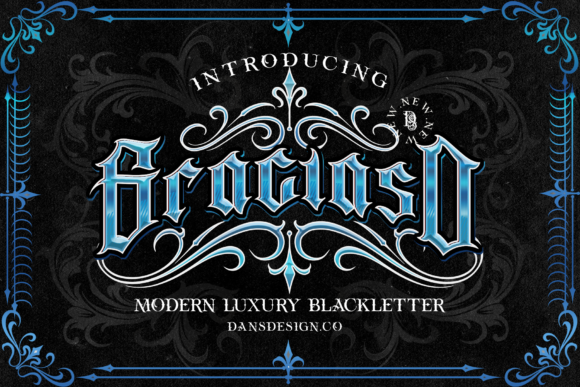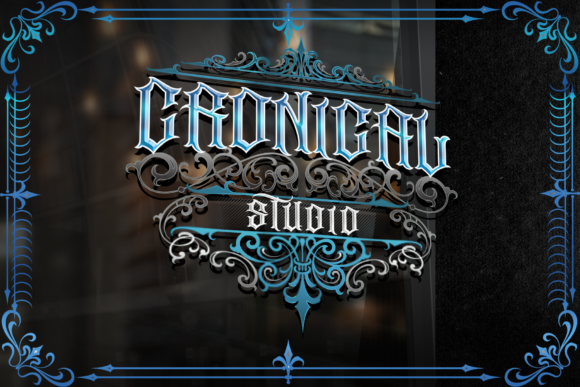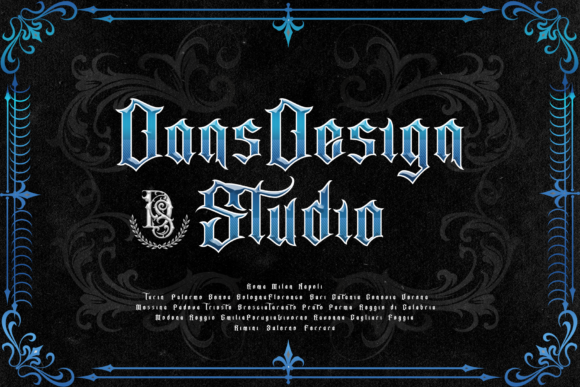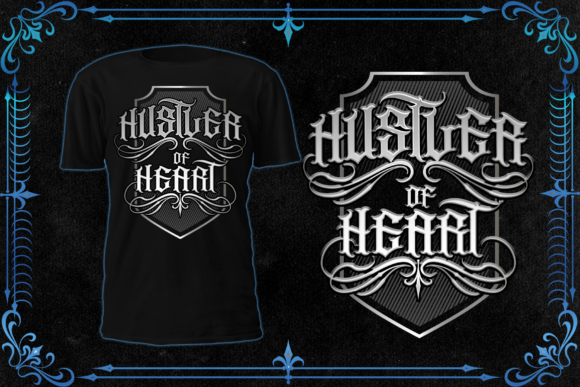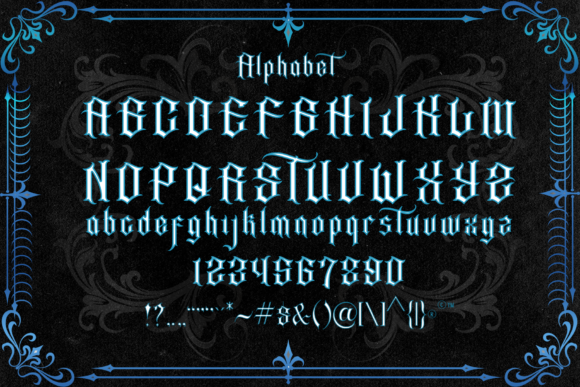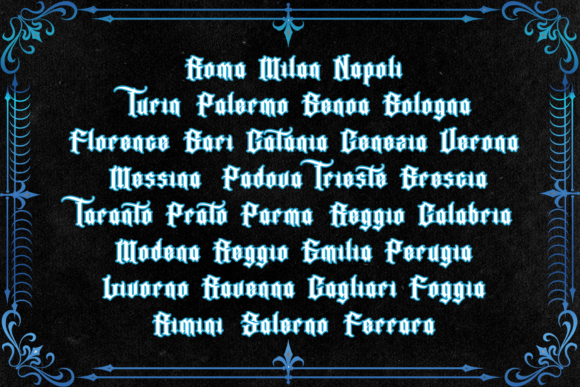
The Power of Graciaso Font: Unlocking Bold Blackletter Style
I’ll never forget the design project that led me to discover Graciaso Font. I was working on a branding campaign for a Gothic-inspired fashion label, and I was struggling to find the perfect font to capture the essence of their dark, edgy aesthetic. That’s when I stumbled upon Graciaso – a highly detailed and bold blackletter font that instantly caught my attention. Its uniquely shaped letters and imposing presence made it the perfect fit for the project, and I’ve been hooked ever since.
An Honest Review of Graciaso Font
- ✨ Highly detailed and intricate design: Graciaso’s bold blackletter style is perfect for making a statement in any design project.
- ✅ Unique letterforms: The font’s distinctive letter shapes set it apart from other blackletter fonts and add a touch of elegance to any design.
- ✅ Versatility: Graciaso can be used for a wide range of projects, from Gothic-inspired branding to medieval-themed designs.
While Graciaso is an amazing font, there are a few things to keep in mind:
- 🤔 Legibility at small sizes: Due to its intricate design, Graciaso may not be the best choice for body text or small font sizes.
- ⚠️ Limited use in digital media: While Graciaso looks stunning in print, it may not be the best choice for digital media, such as websites or social media graphics, due to its bold and intricate design.
- Experiment with Graciaso’s OpenType features, such as stylistic alternates and glyphs, to add more personality to your design.
The Backstory of Graciaso Font
Graciaso Font was designed by a team of typographers who wanted to create a bold, eye-catching font that would capture the essence of Gothic-inspired designs. The font’s unique letterforms and intricate design make it perfect for designs that require a touch of elegance and sophistication.
| Font Name | Graciaso Font |
| Author | Dansdesign |
Q: What is Graciaso Font?
A: Graciaso Font is a highly detailed and bold blackletter font designed for use in a wide range of creative projects.
Q: Is Graciaso Font suitable for body text?
A: While Graciaso is a beautiful font, it may not be the best choice for body text due to its intricate design and limited legibility at small sizes.